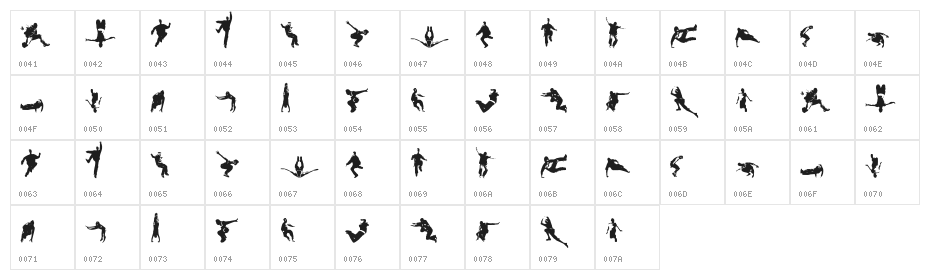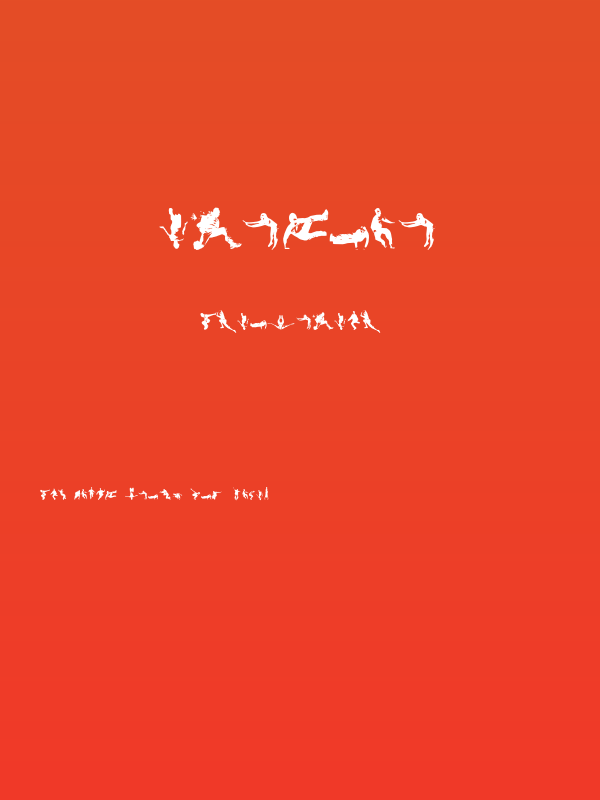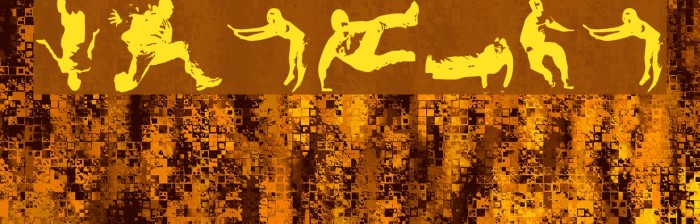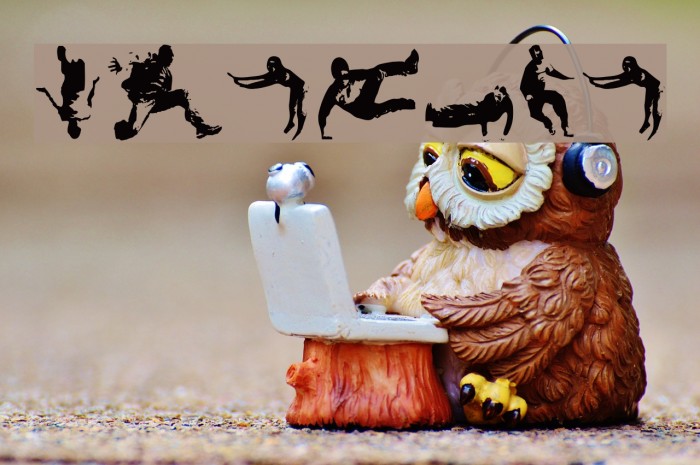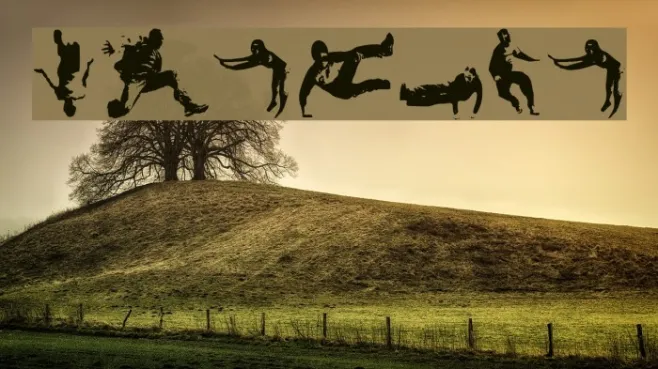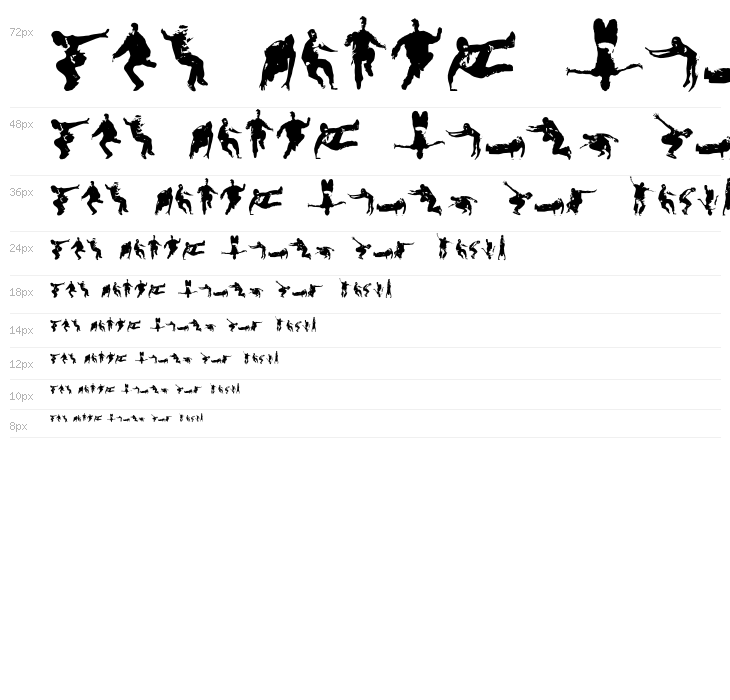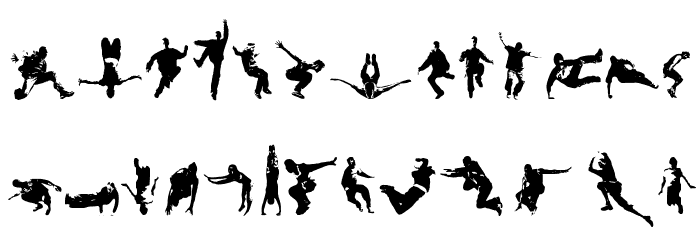
Parkour Font
Parkour Description
A highly decorative and playful font composed of dynamic silhouettes of people performing parkour moves, with each character represented by a unique action pose. The letterforms are abstracted and rely on the human figure to create recognizable shapes.
PARKOUR UPPERCASE
PARKOUR LOWERCASE
PARKOUR OTHER CHARS
| Overall Style | Decorative, Playful, Energetic |
| Use Case | Headlines, Posters, Logos, Event Branding |
| Proposed Projects | Event posters, sports branding, youth-oriented campaigns, extreme sports magazines, creative headlines. |